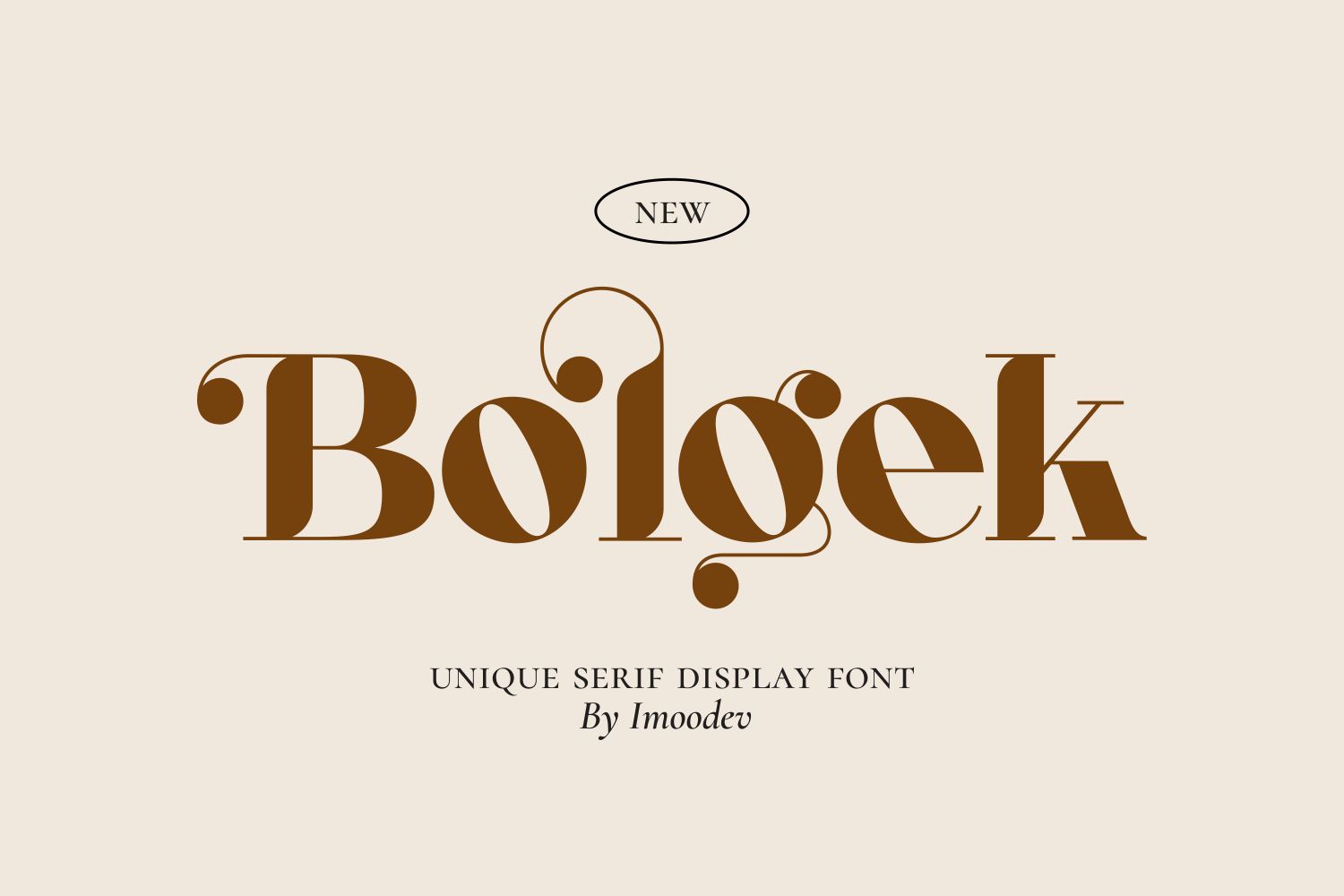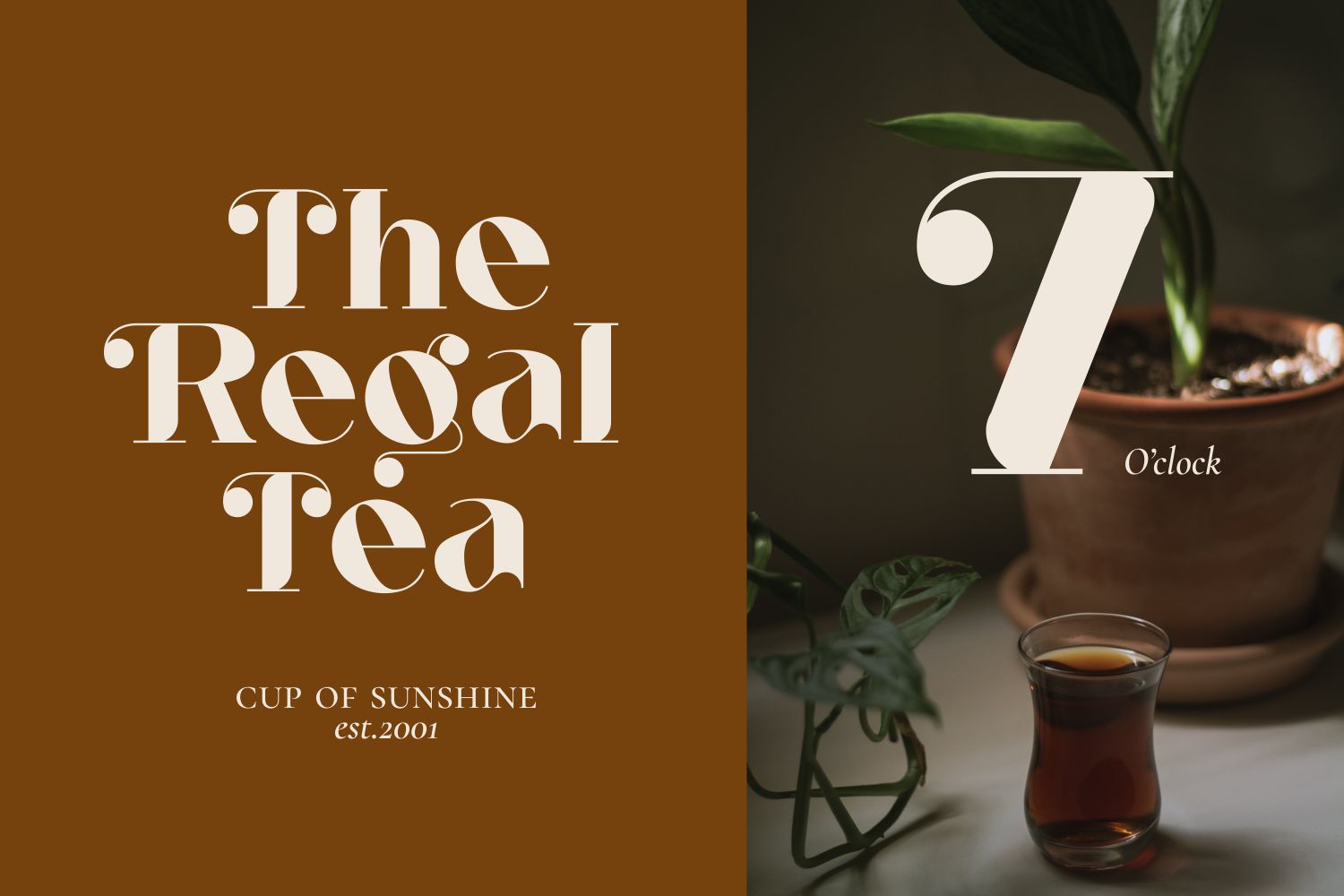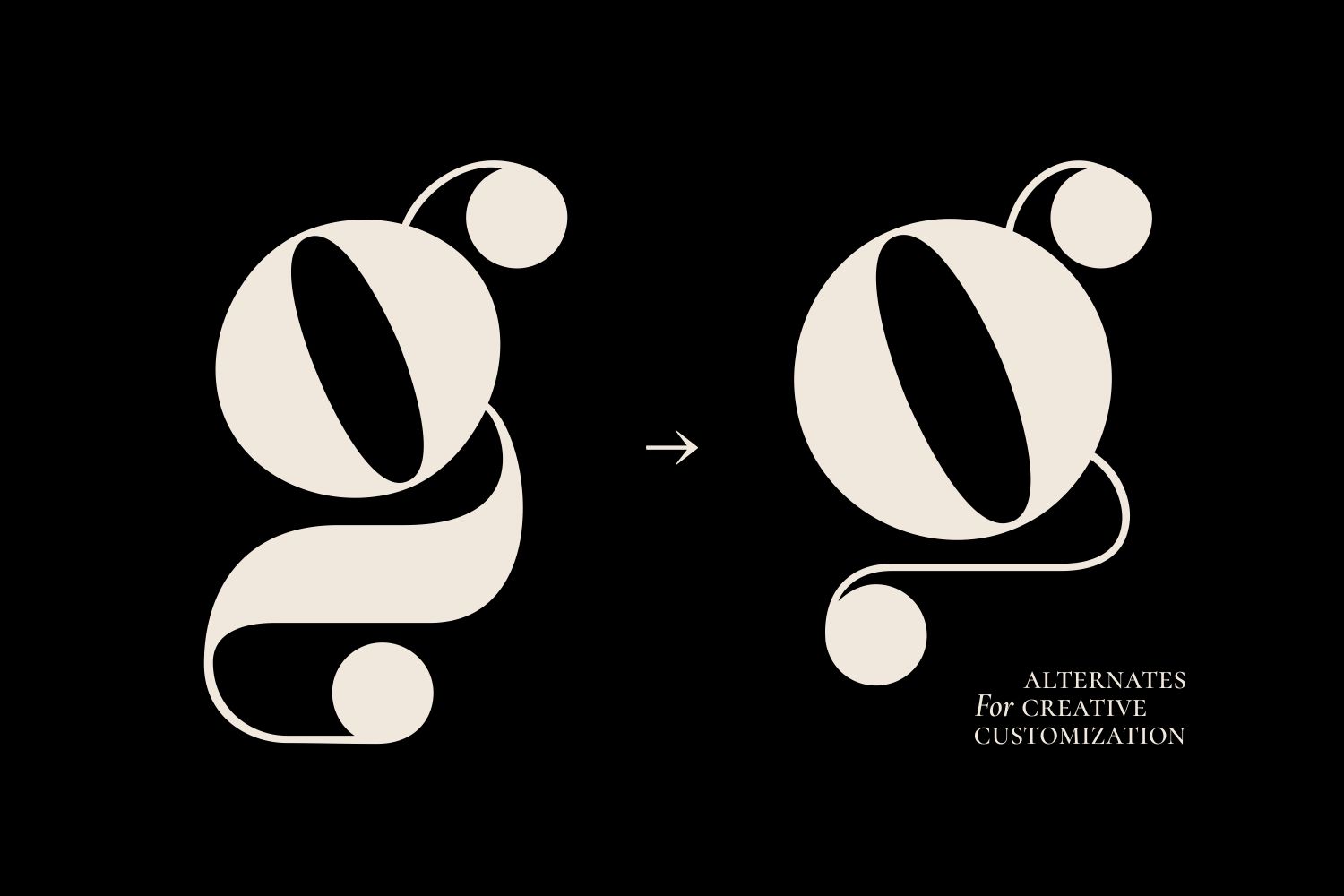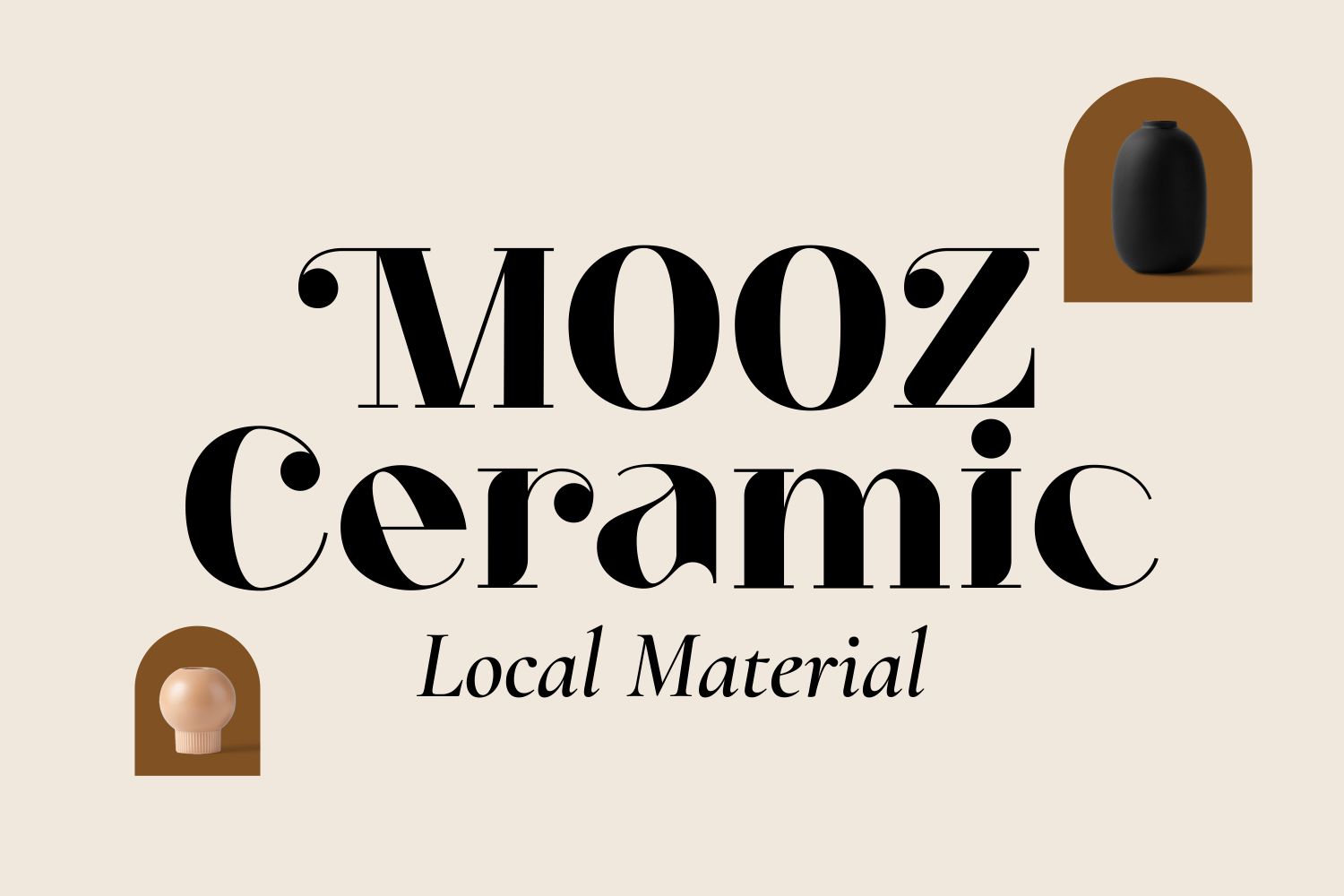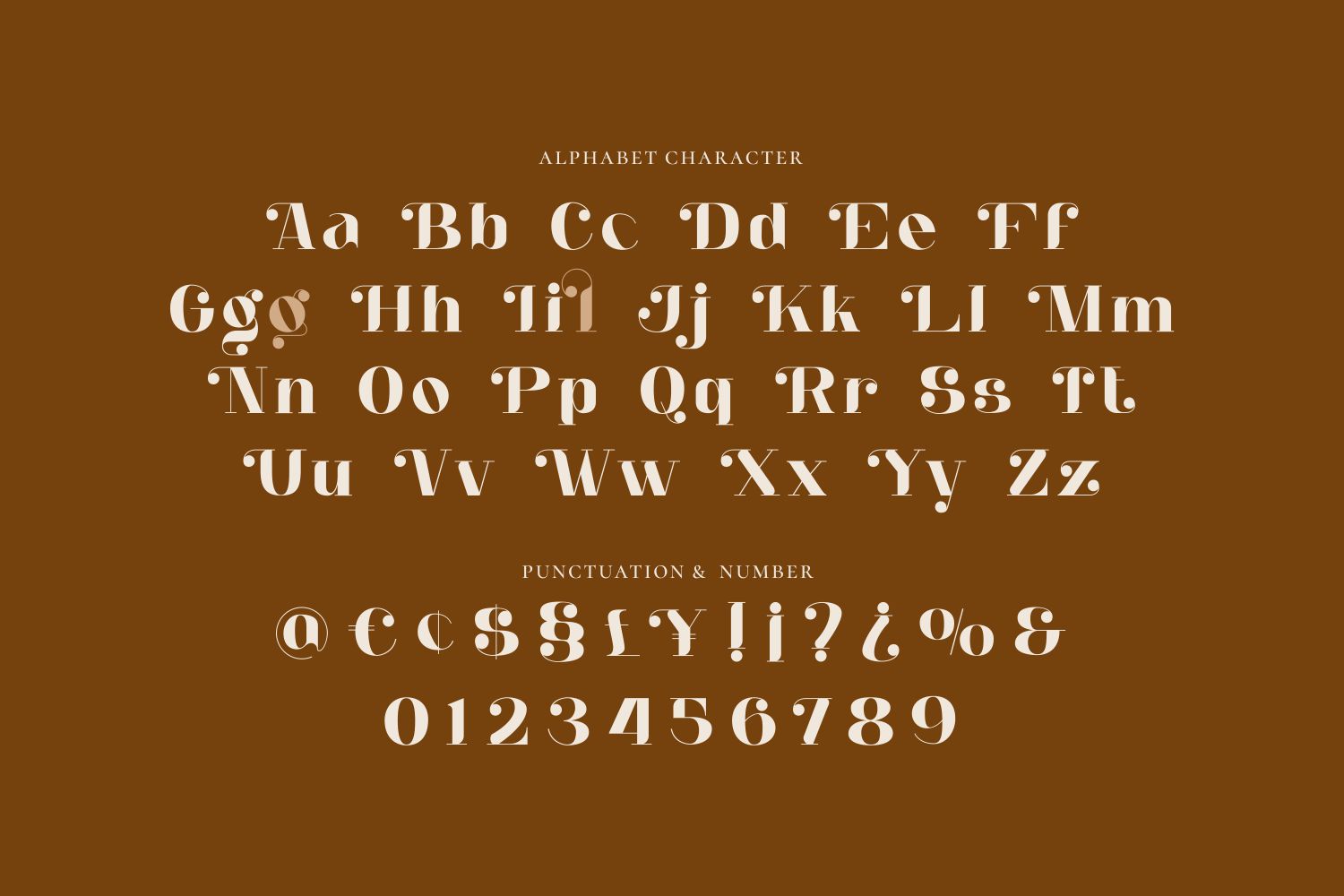
Bolgek is a unique serif display font that blends elegance with a modern artistic twist. Its bold strokes are contrasted with delicate curves and ornamental swashes, making it perfect for designs that demand sophistication and flair. Each letterform carries a sense of luxury and creativity, making this typeface an excellent choice for branding, packaging, editorials, and event invitations. The font offers a timeless appeal with a fresh, stylish execution that stands out in both digital and print formats.
With alternates and creative ligatures, Bolgek allows designers to customize typography for a distinctive and expressive look. Its refined details and graceful extensions add a touch of artistry while maintaining readability and balance. This font is versatile enough to be used for high-end projects, such as fashion campaigns, logos, and luxury product branding, yet playful enough to bring character to modern creative works.